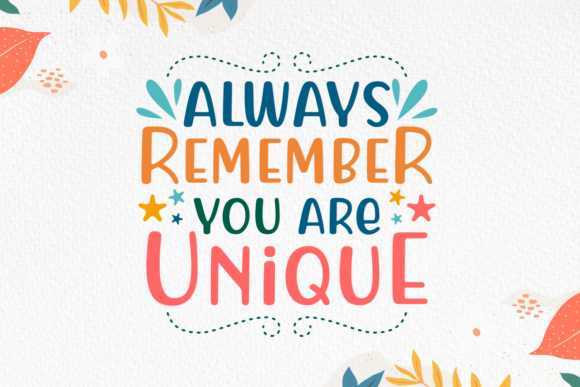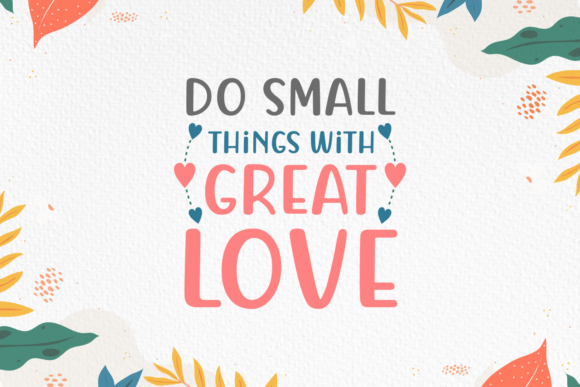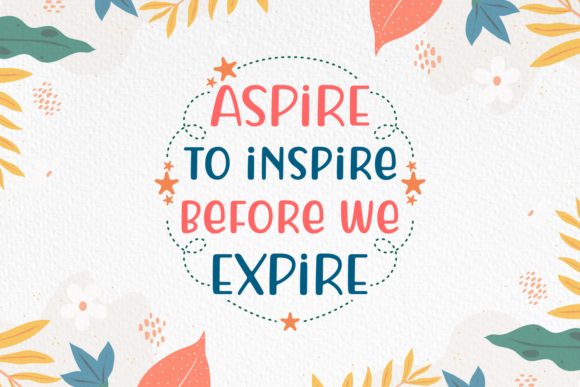
Introducing Freed Shackle Font: Adding a Playful Twist to Your Creative Projects
In the world of typography, fonts play a crucial role in bringing creative ideas to life. A unique font can elevate a design, making it stand out from the crowd and leave a lasting impression. If you’re a designer, crafter, or simply someone who loves to explore their creative side, you’ll be thrilled to discover the Freed Shackle Font. This one-of-a-kind sans serif font is designed to add a playful spin on any creative idea, making it an excellent addition to your font collection.
What is Freed Shackle Font?
Freed Shackle Font is a modern sans serif font that boasts a distinctive and charming personality. Its unique design makes it perfect for a wide range of creative projects, from digital designs to craft projects. The font’s playful and carefree vibe is sure to capture the attention of your audience, making it an excellent choice for designers and crafters looking to add some personality to their work.
Key Features of Freed Shackle Font
- Unique Design: Freed Shackle Font features a one-of-a-kind design that sets it apart from other sans serif fonts.
- Playful Vibe: The font’s playful and carefree personality makes it perfect for creative projects that require a touch of whimsy.
- Versatile: Freed Shackle Font can be used for a wide range of projects, from digital designs to craft projects.
- Easy to Read: The font’s clear and clean design makes it easy to read, even at small sizes.
Uses for Freed Shackle Font
Freed Shackle Font is an incredibly versatile font that can be used for a variety of creative projects. Here are some ideas to get you started:
- Digital Designs: Use Freed Shackle Font to add a playful touch to your digital designs, such as social media graphics, blog posts, and website headers.
- Craft Projects: Add a personal touch to your craft projects, such as handmade cards, scrapbooking, and DIY signs.
- Branding: Use Freed Shackle Font to create a unique and memorable brand identity for your business or personal project.
- Signage: The font’s clear and easy-to-read design makes it perfect for signage, such as event signs, directional signs, and store signs.
Tips for Using Freed Shackle Font
To get the most out of Freed Shackle Font, here are some tips to keep in mind:
- Experiment with Colors: Freed Shackle Font looks great in a variety of colors, so don’t be afraid to experiment and find the perfect hue for your project.
- Mix and Match: Combine Freed Shackle Font with other fonts to create a unique and visually appealing design.
- Play with Size: The font’s clear design makes it easy to read at various sizes, so feel free to experiment with different font sizes to add visual interest to your project.
Freed Shackle Font is a unique and versatile font that can add a playful spin on any creative idea. Its distinctive design, playful vibe, and ease of use make it an excellent choice for designers, crafters, and anyone looking to add some personality to their creative projects. Whether you’re working on a digital design, craft project, or branding initiative, Freed Shackle Font is sure to bring a fresh and creative perspective to your work.